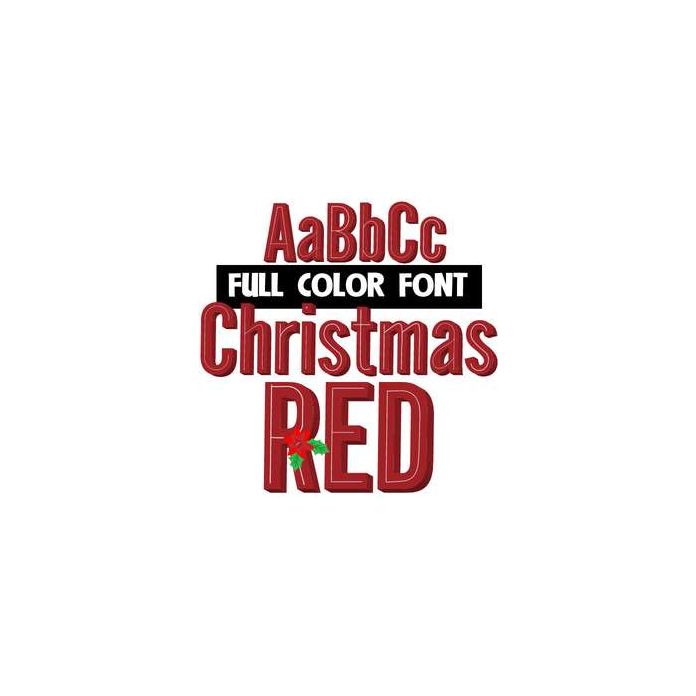
x-mas red color font
This full-color font features 3-d sans serif letters with a little "inline" decor. By no means does this color font need to be for the holidays only. Accent letters with the bullet point, which is actually a little Christmas floral. You can access through your system's character map or typing "alt + 0149" in Windows. This font works best for titles, displays, posters and more. Please note color fonts will show as black in non compatible programs. This font type is compatible with Silhouette Studio.